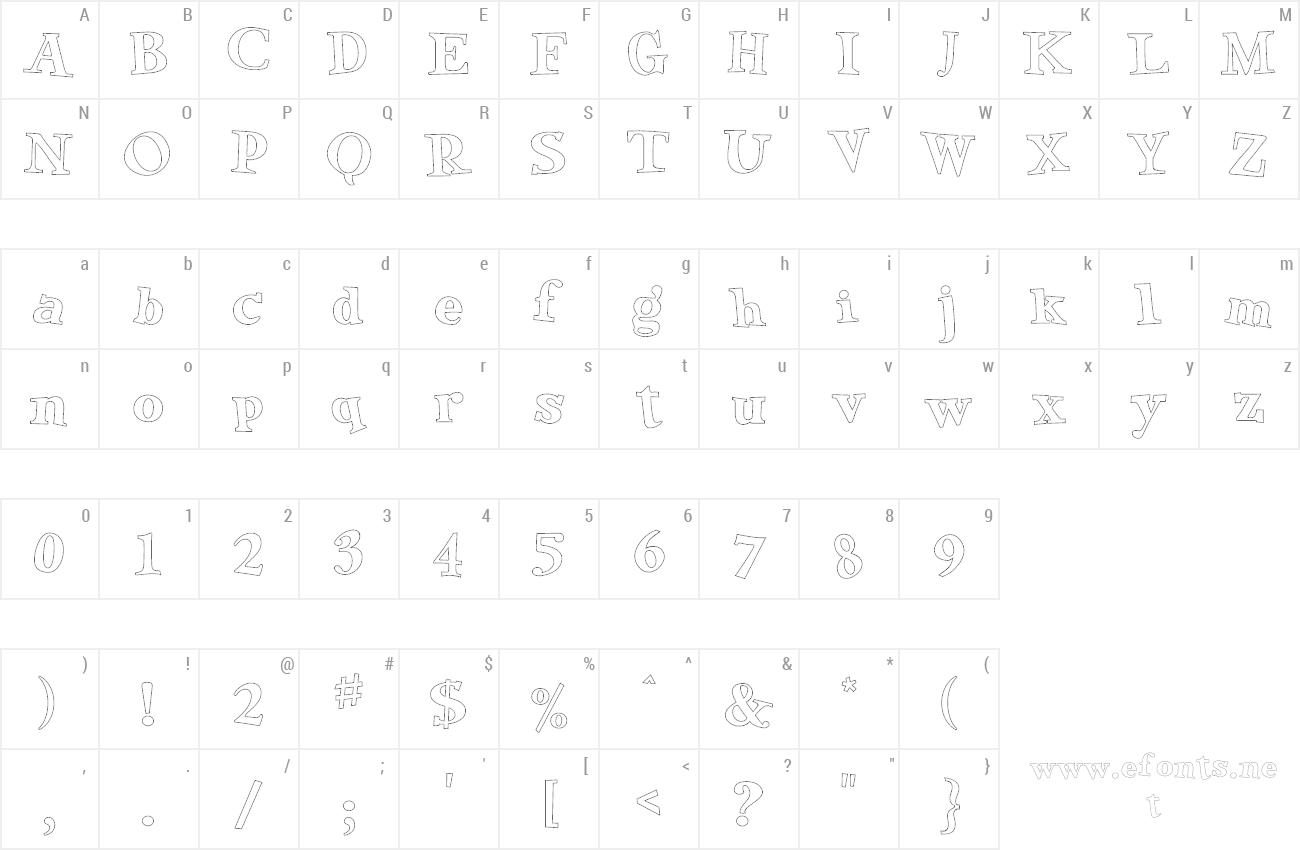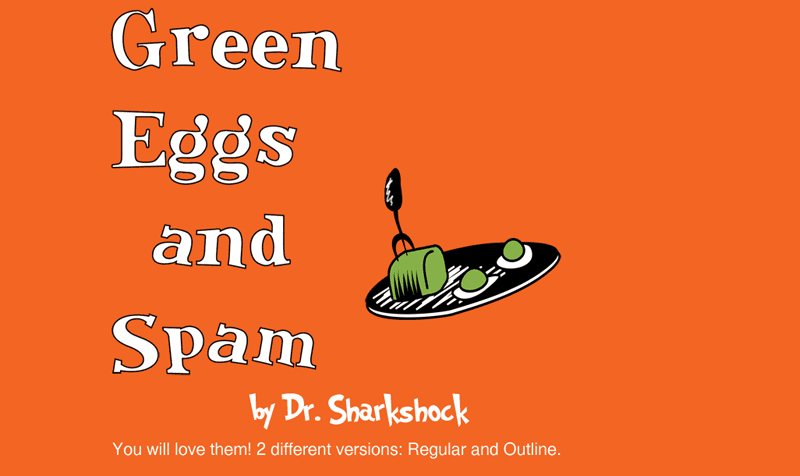
Preview and download Green Eggs and Spam Font. Created by Sharkshock in Fancy Cartoon styles with Free for personal use license.
Try it! You will see! A font that's fun for you and me. Boys and Girls, Ladies and Gentlemen i give you Green Eggs and Spam; A playful typeface that will take you back to your childhood before you can say "Sam I Am." This typeface contains accents, European characters, and kerning. Perfect for scrapbooking and children's books. Green Eggs and Spam comes in two different versions: Regular and Outline. Email me if you need Eastern European characters not found in this file. For commercial use please contact me at dennis@sharkshock.net to discuss an end user license. I also design custom fonts for businesses, logos, and many other things. visit www.sharkshock.net for more and take a bite out of BORING design! |